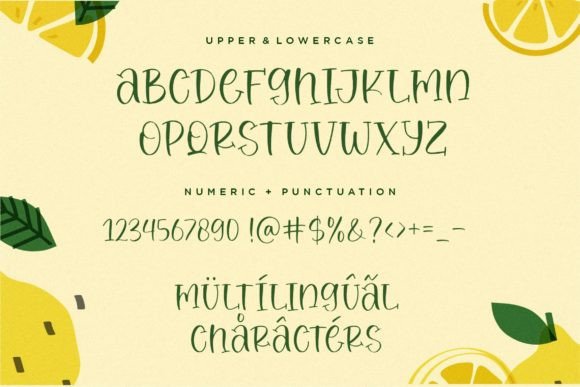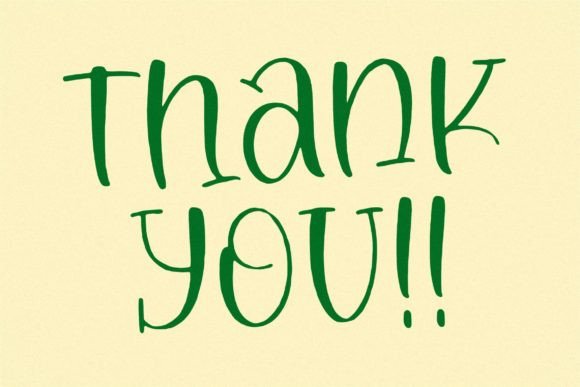
Introduction to Roasted Lemon Font
Do you remember that moment when you stumbled upon the perfect font for your creative project? It’s as if the stars aligned, and everything just clicked into place. For me, that moment happened when I discovered the Roasted Lemon Font. This stunning handbrushed font has been a game-changer in my design process, and I’m excited to share its awesomeness with you.
Whether you’re a seasoned designer or just starting out, the Roasted Lemon Font is an invaluable resource for any creative project. Its unique, handcrafted style lends itself perfectly to digital designs, presentations, and even greeting cards. And the best part? It’s a free download, making it an accessible design resource for everyone.
With its transparent background and high-quality design, the Roasted Lemon Font is sure to elevate your designs and leave a lasting impression. So, let’s dive into the world of this amazing font and explore its endless possibilities together!
Key Features of Roasted Lemon Font
- Unique and vibrant design, perfect for creative projects requiring a playful touch.
- High-quality font with a transparent background, ideal for graphic designers and artists.
- Roasted Lemon Font is ideal for use in digital designs, such as social media graphics, logos, and web pages, due to its modern and stylish appearance.
- Comes with a full character set, including uppercase and lowercase letters, numbers, and punctuation marks, making it a versatile design element.
Honest Review: Roasted Lemon Font
As a designer, I’m always on the lookout for unique and high-quality design resources to enhance my creative projects. The Roasted Lemon Font caught my attention with its refreshing and citrusy vibe, making it perfect for projects that need a touch of whimsy.
Here are some things that work well with this font: ✨
- Its transparent background makes it easy to customize and combine with other design elements.
- The font’s modern and playful feel makes it suitable for various design projects, from branding to digital design.
However, there are some limitations to consider: ⚠️
- The font’s character set may not be as extensive as some other fonts in its category.
- It may not be suitable for projects that require a more formal or serious tone.
Overall, I’m impressed with the Roasted Lemon Font’s high quality and versatility. While it may not be perfect for every design project, it’s an excellent addition to any designer’s toolkit, especially for those looking for a unique and creative design resource.
Roasted Lemon Font
Tips for Getting the Most Out of Roasted Lemon Font
For the best results, use the font on a transparent background to achieve a clean and minimalist look. Experiment with different font sizes and colors to create visually appealing designs. You can also use the font in combination with other design resources to create unique and eye-catching creative projects.
The Roasted Lemon Font is ideal for creating free download designs, such as social media graphics, flyers, and posters. Its high-quality design makes it perfect for use in design projects where a clean and modern look is required.